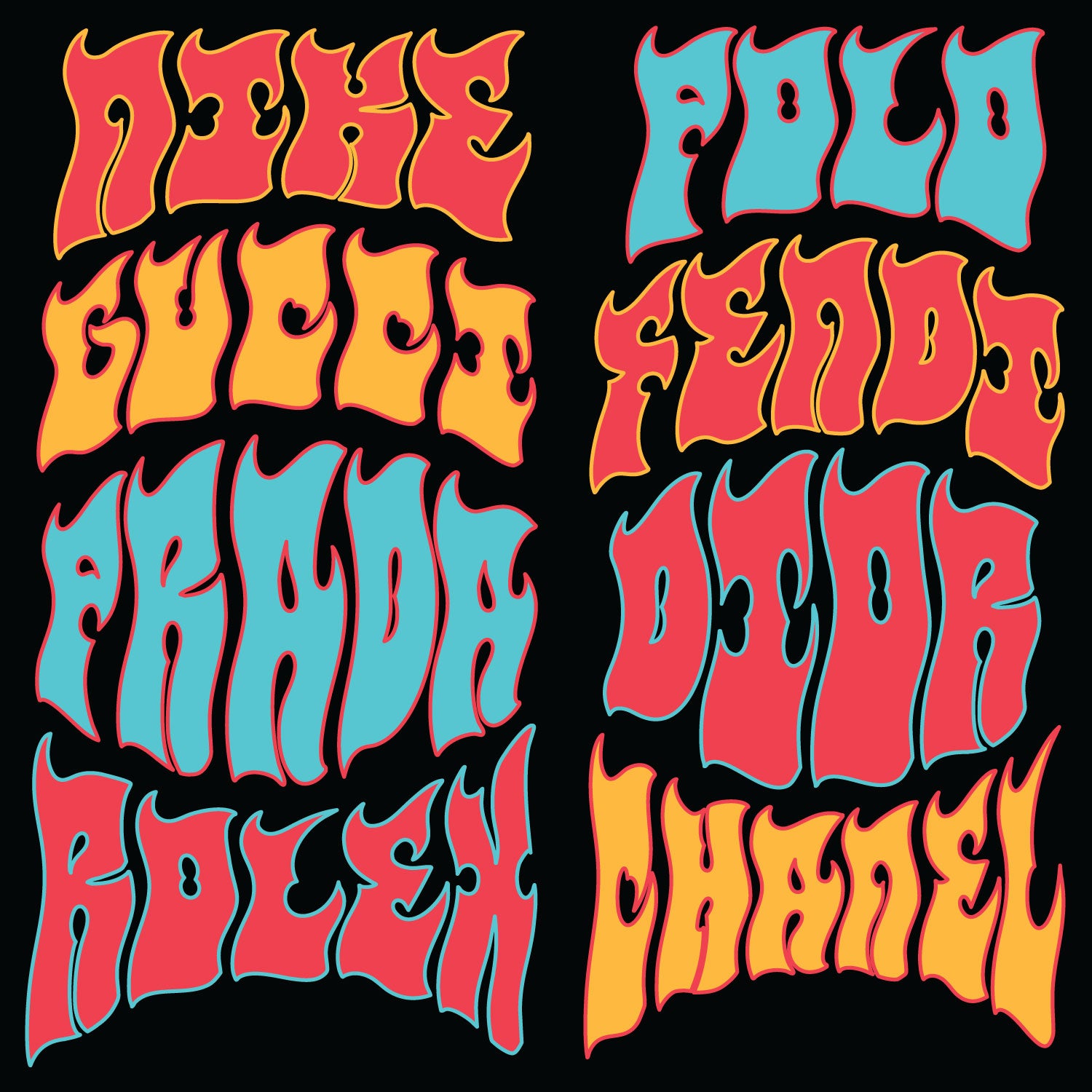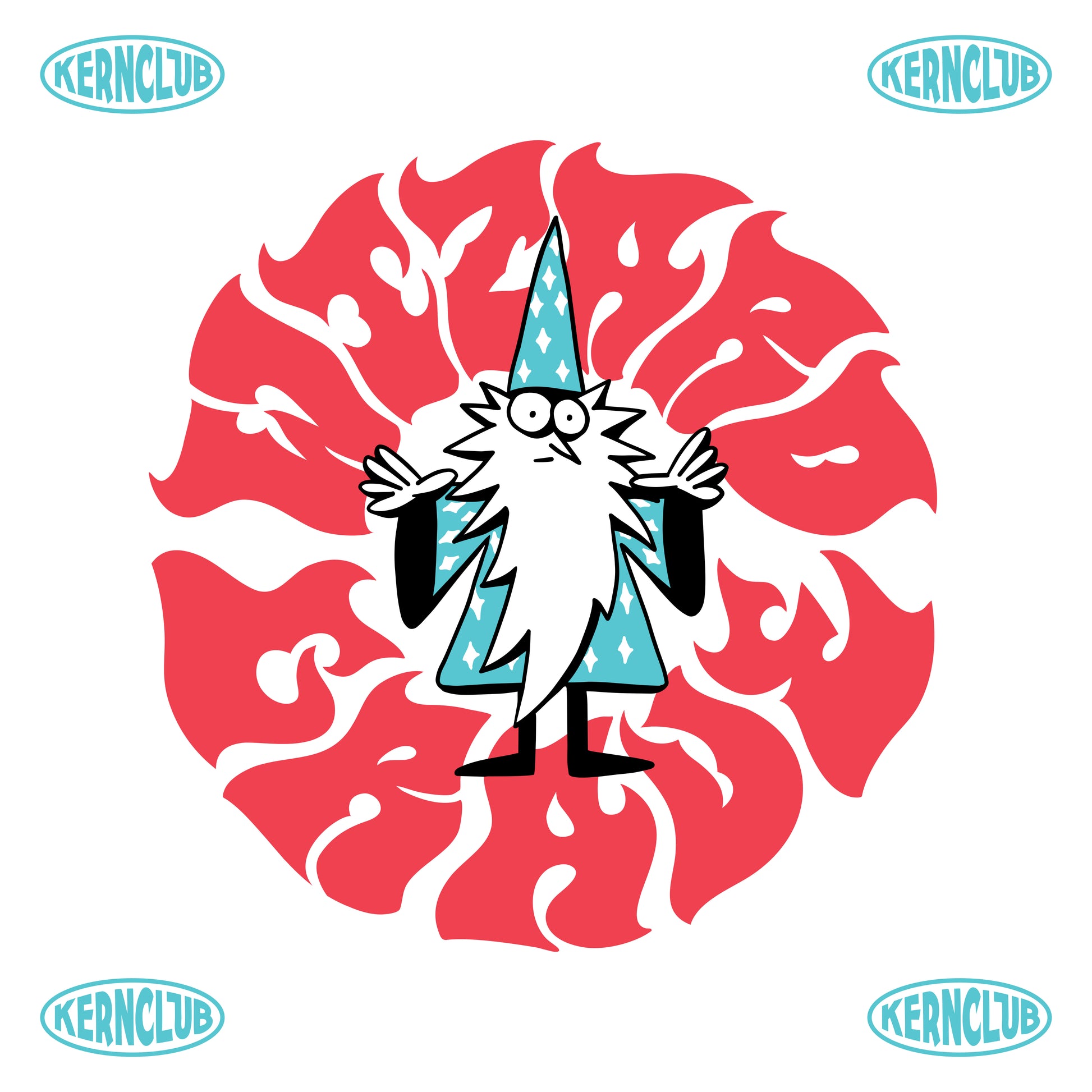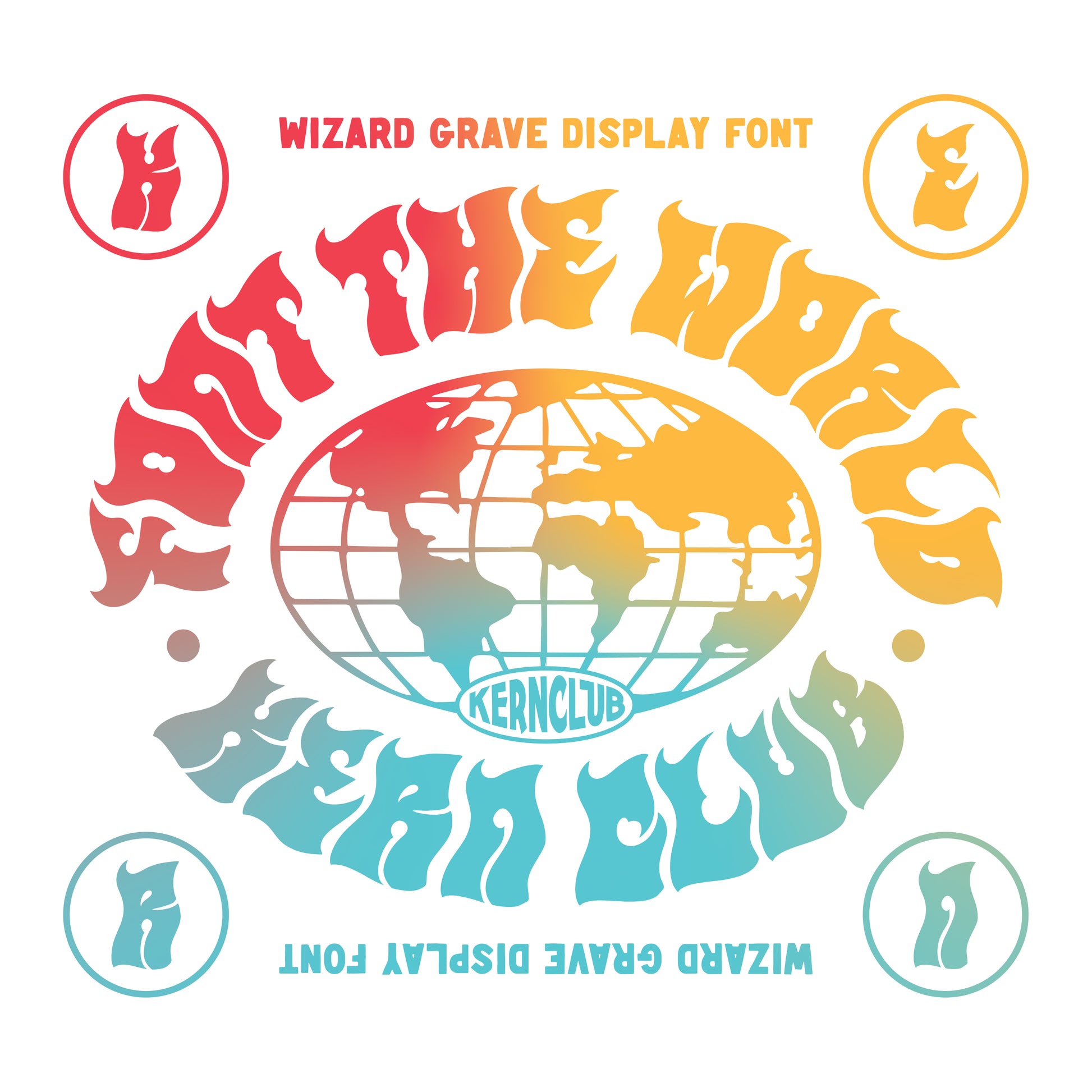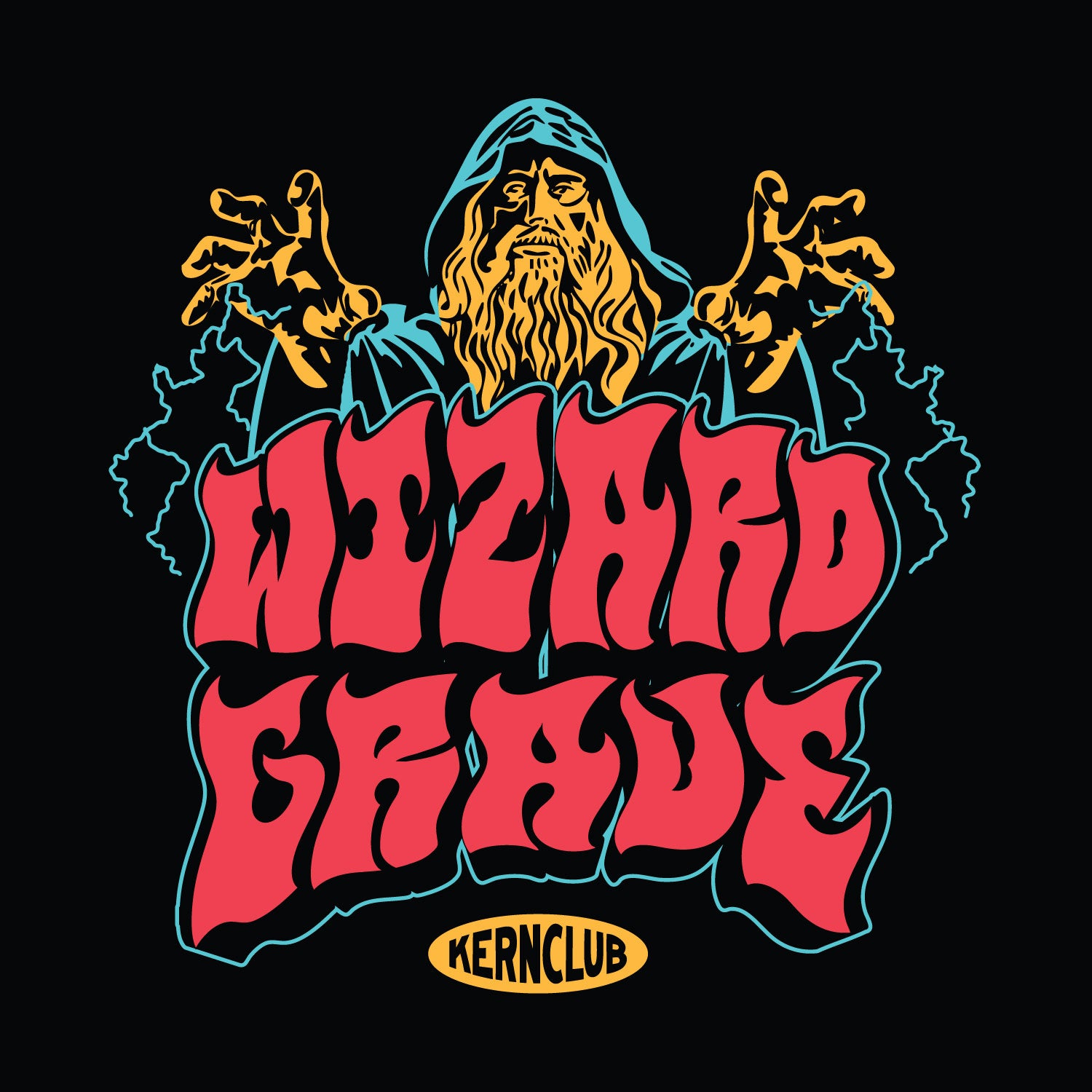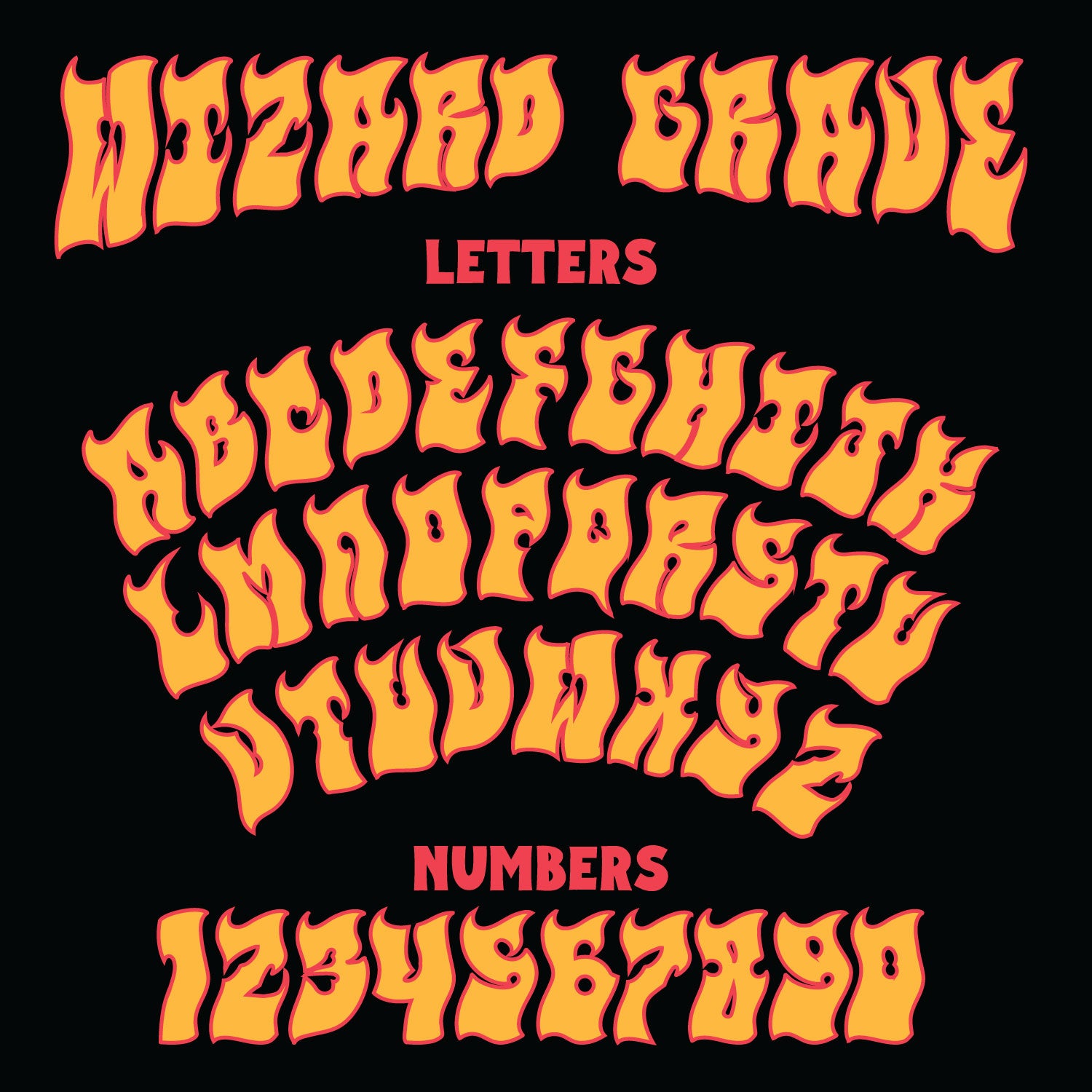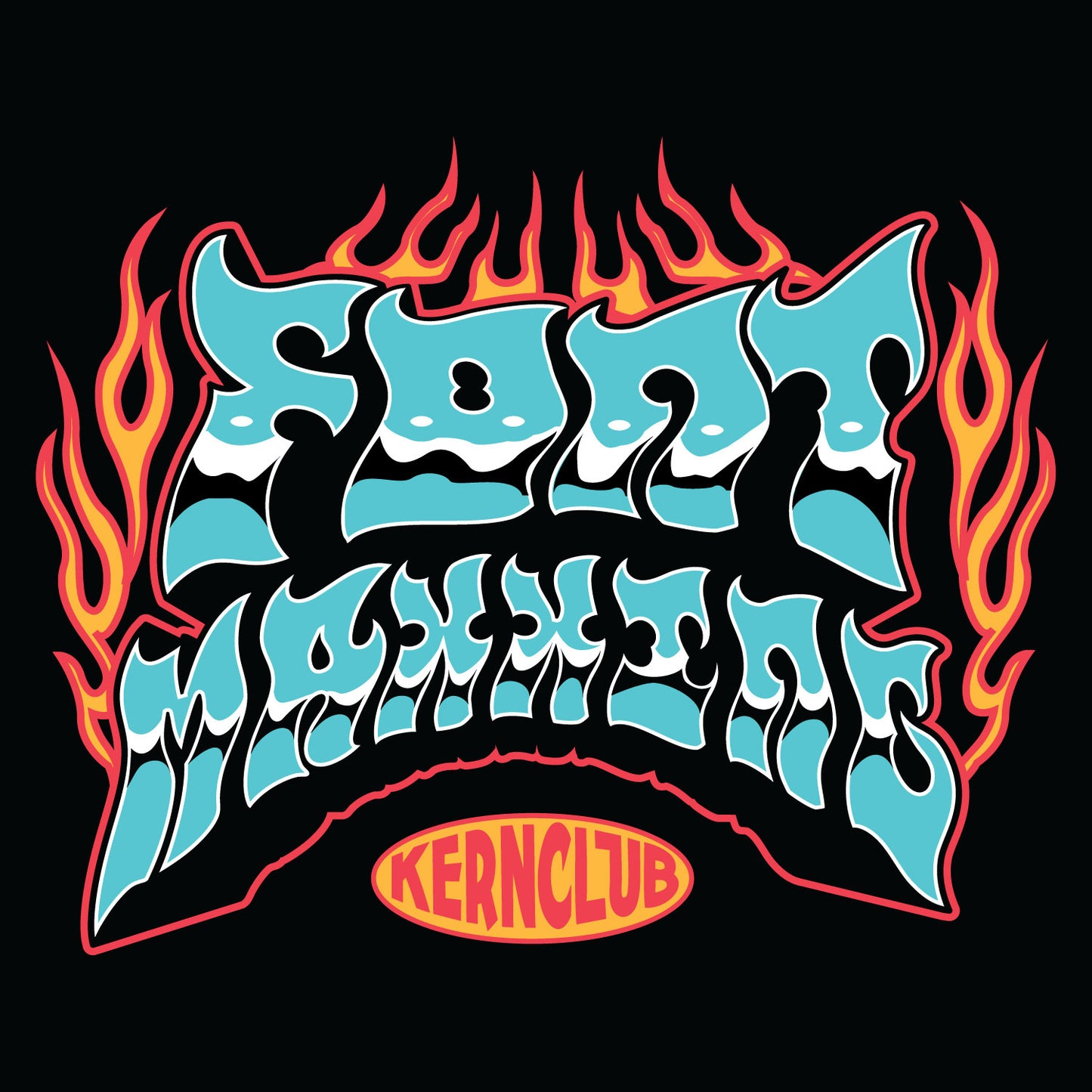
Wizard Grave Font
Wizard Grave is a bold 1970s psychedelic rock font with a some metal in its blood. The letters flow together like the riffs that inspired it. Every character was hand-drawn by Samborghini straight off the dome... no grids, no templates, and definitely no AI. Just pure human wizardry. If you’re a swagless designer, who is worried about perfect legibility, please keep scrolling.